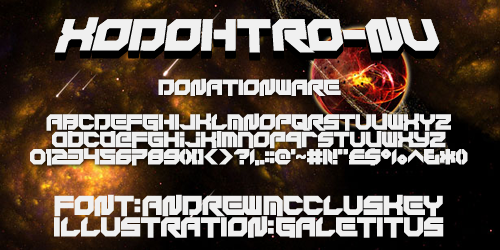
Futuristic "space-type" font. "Xodohtro-Nu" (Un-Orthodox backwards!), created using FontStruct, is a Donationware font. For any use, commercial or non-commercial, you can either: 1. Donate ANY sum of money to Andrew McCluskey via PayPal: nal@nalgames.com. While I recommend the donation sum is what you feel the font is worth to you and what you feel is right for what you're getting from the font, it can literally be any sum of money, even 0.01 USD/GBP/your local currency. , 2. Or just let me know that you're using the font, via email to nal@nalgames.com, with a tweet to @NALGames, or through DaFont directly! You don't need to attach any samples of the work, though if you can, it is highly appreciated, so thank-you. Just mentioning what you're using it for is preferred but not necessary. Doing either of these things grants you, or the organisation/etc you represent, the ability to use this font infinitely for anything and everything you desire. I do not restrict what you want to use it for, anything goes. You may redistribute this font, but please let me know via nal@nalgames.com (I won't prohibit redistribution under any circumstance) and please include everything contained within the .zip folder the font was downloaded in. More... |